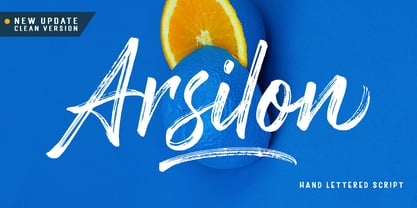
Arsilon
von Dhan Studio
Die Schriftfamilie Arsilon wurde von Mauli Zari entworfen und von Dhan Studio veröffentlicht. Arsilon enthält 4 Stile und Familienpaketoptionen.
Arsilon is a textured brush font, a contemporary approach to design, naturally handmade and with underscores. It also has alternatives and ligatures that make your design more attractive.
⚡ New update, Now the Arsilon font has been updated or has two styles with the Arsilon Smooth version, so you can already choose the style you want to use for your design.
Designer: Mauli Zari
Herausgeber: Dhan Studio
Foundry: Dhan Studio
Eigentümer des Designs: Dhan Studio